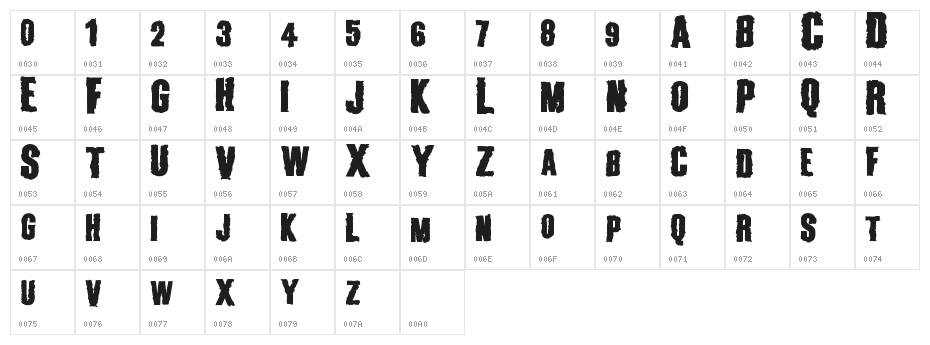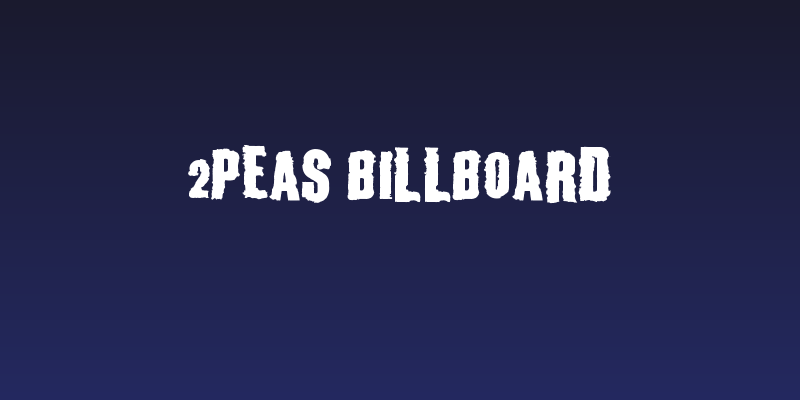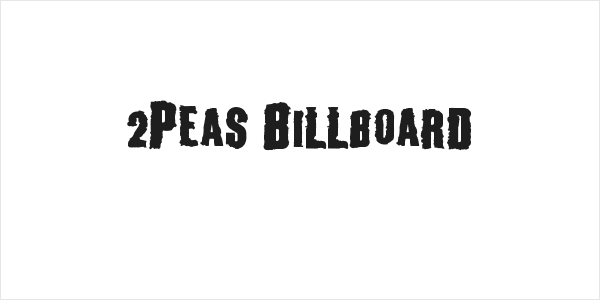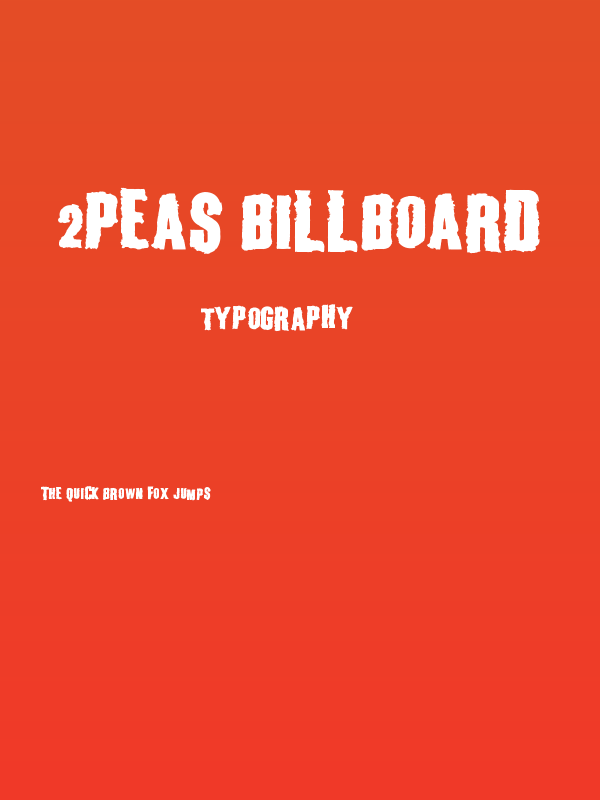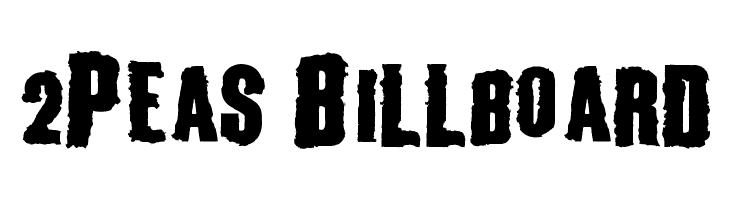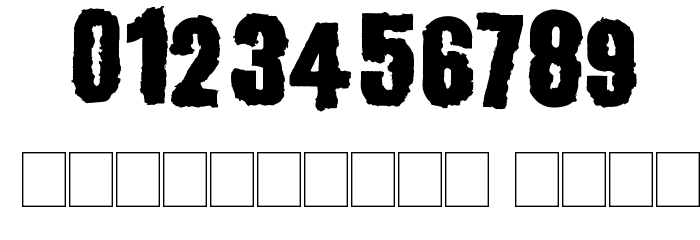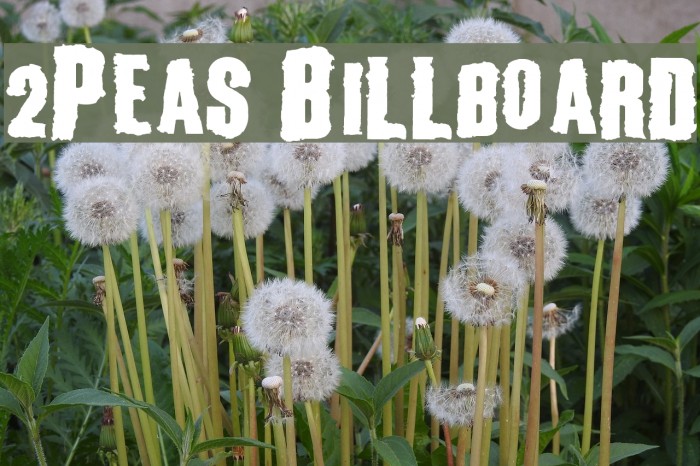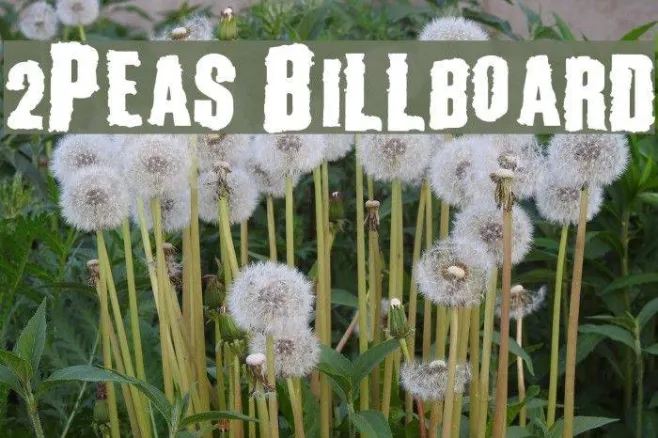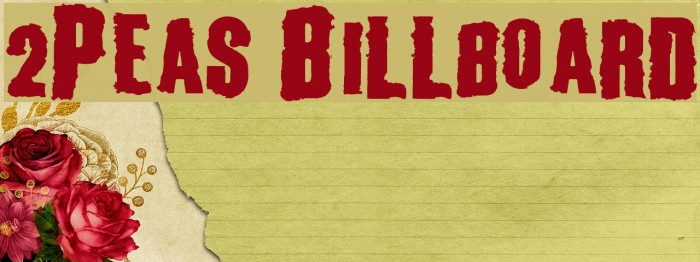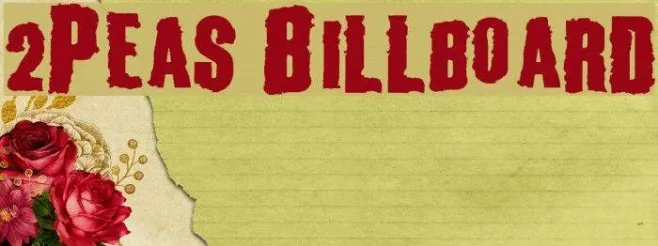
2Peas Billboard Font
2Peas Billboard Description
This font features a bold and rugged style with a distressed texture, giving it a worn and weathered appearance. The characters are thick and heavy, with irregular edges that create a sense of movement and energy. This design is reminiscent of vintage signage or posters, evoking a sense of nostalgia and authenticity. The uppercase letters are prominent and commanding, making them ideal for attention-grabbing headlines or titles. The numbers and special characters maintain the same distressed aesthetic, ensuring consistency across all text elements.
| Overall Style | Vintage |
| Proposed Projects | Ideal for vintage-themed posters, album covers, or branding projects that require a bold, eye-catching typeface. |